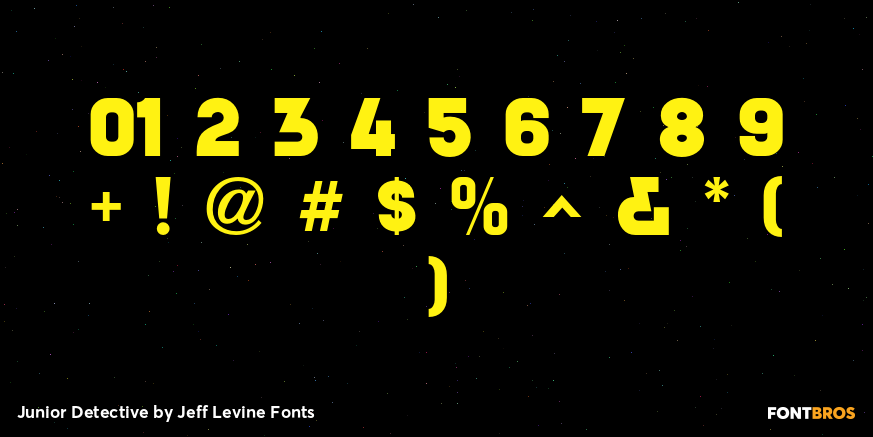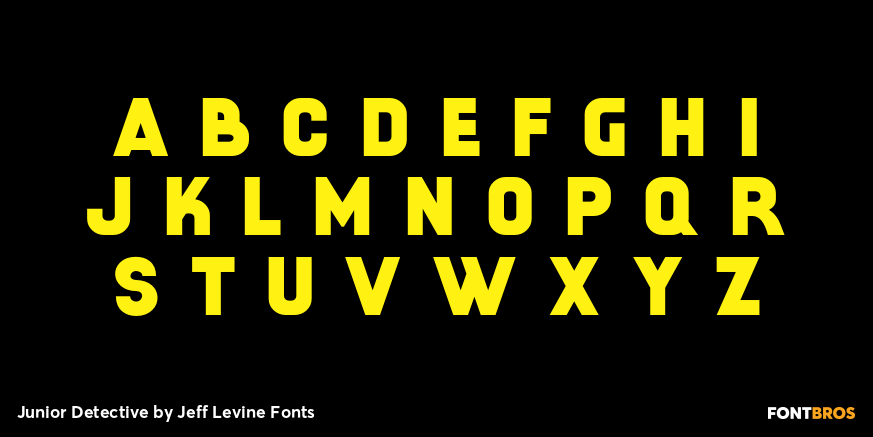
Junior Detective
A 1930s kids' premium booklet from Post cereals called 'Inspector Post's Junior Detective Corps Manual #2” offered up some great hand lettering in an Art Deco sans serif style.
Bold, authoritative and perfect for headlines or titling, Junior Detective JNL now recreates this hand lettering in digital form.